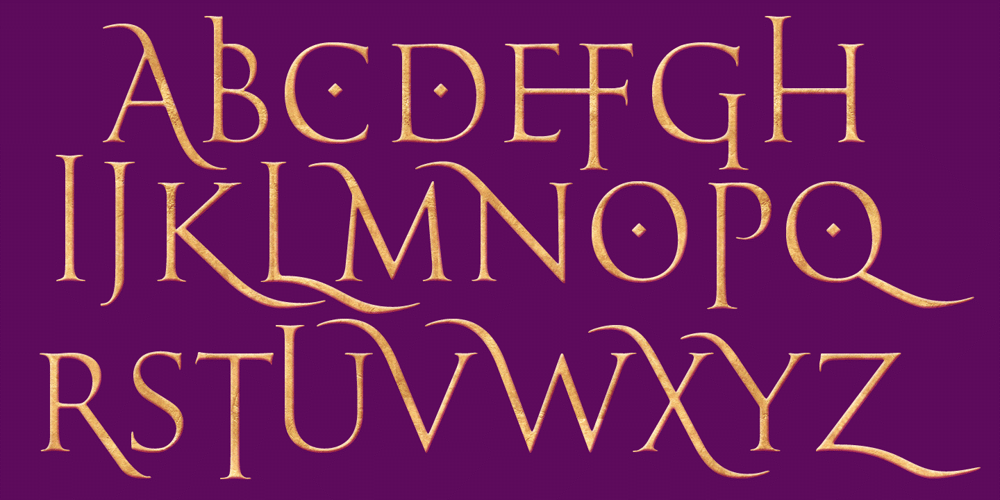
Goudy Trajan Pro Font Family was designed by Frederic W. Goudy, Jason Castle and published by CastleType. Goudy Trajan Pro contains 3 styles and family package options. Goudy Trajan Pro is based on the drawings by F.W. Goudy of his rendition of the capital letters inscribed on the Trajan column in Rome, rather than on his subsequent metal type, Trajan (Title), released in 1930. Goudy Trajan Pro includes almost 1500 glyphs in each of three weights, including: uppercase, alternates, swash caps, small caps, vertically centered small(er) caps, dozens of fleurons, and much more. Supports Latin, Cyrillic and modern Greek scripts. Many thanks to Krassen Krestev, Sergiy Tkachenko, and Adam Twardoch for their suggestions for improving the Cyrillic glyphs; and to Alex Sheldon for his suggestions for swash caps and improved OpenType features.